‘By escaping the normative universe and trying to find new contexts and emotions I get influenced to create new typography’, says the freshly graduated Graphic and Type Designer, Rémi Volclair (@rembagram). Already boasting a beautiful stack of typefaces in his portfolio, Rémi seems to be drawn to meeting abstraction with typography to envision a new aesthetic for the future. In Rémi’s mind, we’re right on the cusp of a shifting cultural era and, alongside other areas of design, typography has the potential to lead us through to the other side.
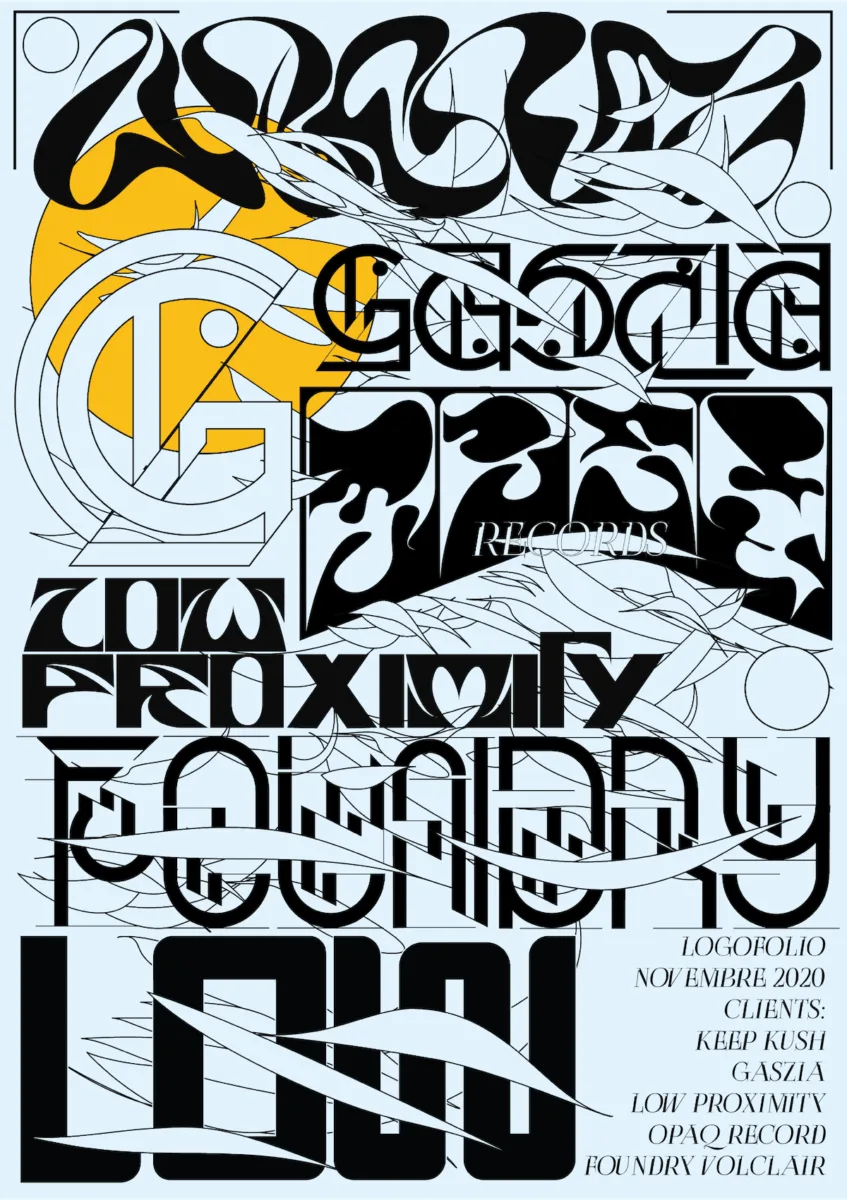
‘Typography has a major role in my work because it allows me to accentuate the emotion of a design’, Rémi tells us. ‘The universe we want to convey to the public begins with a coherent typography that lays the foundations for a thoughtful design.’ Originally from Normandy and having spent three years studying near Marseille, Rémi has been working freelance since moving to Stockholm in September.
‘My typographical approach has the goal to open up a future with new aesthetics’ he continues. ‘A future which I believe is not very far away… I think that if we would change a few visual things in our aesthetic universe with a new style, it could be equated to a changed era. It’s the same for any type of design, not just the typography. A universe with a new, more visual communication could tell us that we are entering a new cultural era’.
In pursuit of developing a new aesthetic future and to explore the edges of what he calls our ‘cultural era’, Rémi started World Digital Magazine with his friend, César Granchamp. ‘The purpose of this project is partly our desire to talk about the unexplored part of our world, which is the abstract and digital one. We believe that thanks to the internet we are able to escape the common world to another one, the abstract one. A world whose size and possibilities are unattainable for humanity’, Rémi expands.
‘For us, abstraction is a form of art that takes you to a feeling where only you can judge your awareness of an artwork. Our project right now is to create a community, and Instagram is our starting point. We are also preparing our website where we will present the first digital edition together with artists as Kitasavi, Kushlet, Miruel. The long term goal it is to make printed versions as well.’
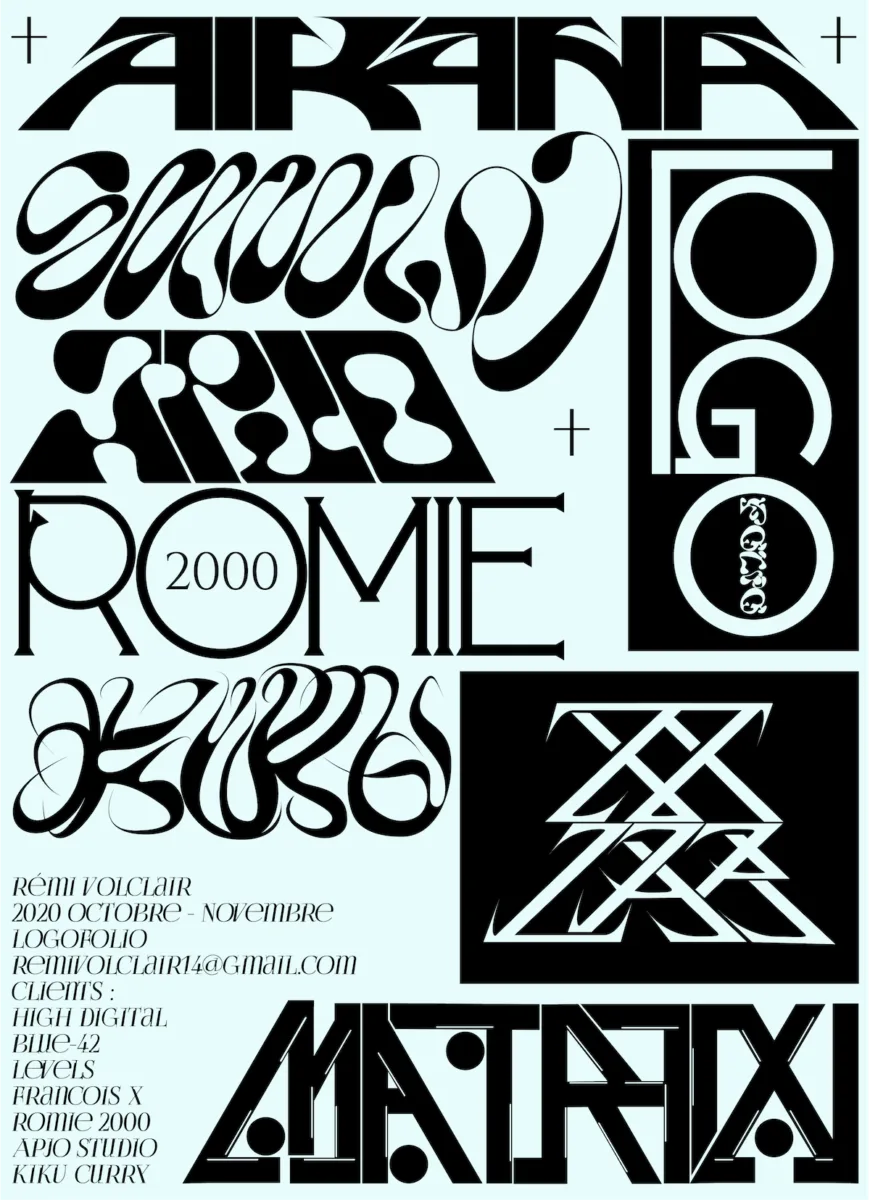
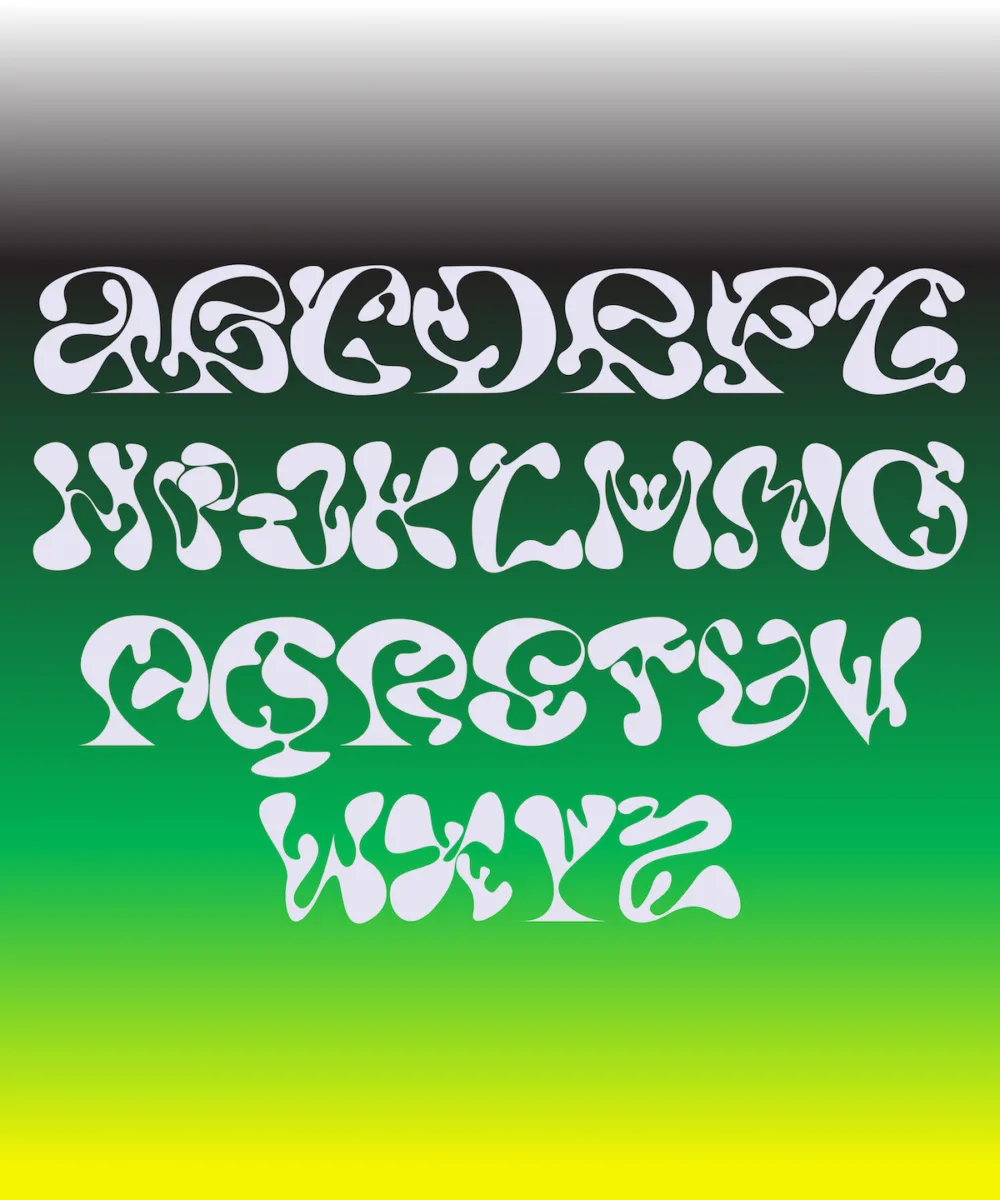
Whilst it’ll be interesting to see how World Digital Magazine develops, we’re already in love with Rémi’s typefaces IDAF and Boogue. Inspired by nature, flora and raindrops, Rémi tells us IDAF meets these shapes with an undercurrent of his ideas about futuristic aesthetic styles. ‘I would say that this type is a rather tropical idea where the curves reminds me of the flowers of the seasons’, he tells us. ‘The creation and process was completely hand drawn and then finished on the program Glyphs. I love to combine this naturalistic and lighter typo with a darker and futuristic style.’
Boogue, however, shows off the darker side of Rémi’s style. Differing from IDAF, Boogue has a much colder, more sinister feel. ‘Influenced by the cyber network as well as video games, this typo came out as one of my more harsh, strict and evil ones. It was created entirely on the basis of a shape bank – the shape bank allows you to have direct consistency in your alphabet’, he explains. These typefaces, we hope, will be just the beginnings of Rémi’s explorations of futuristic design aesthetics. We’re fasciated to see where his ideas take him next. Thanks, Rémi!